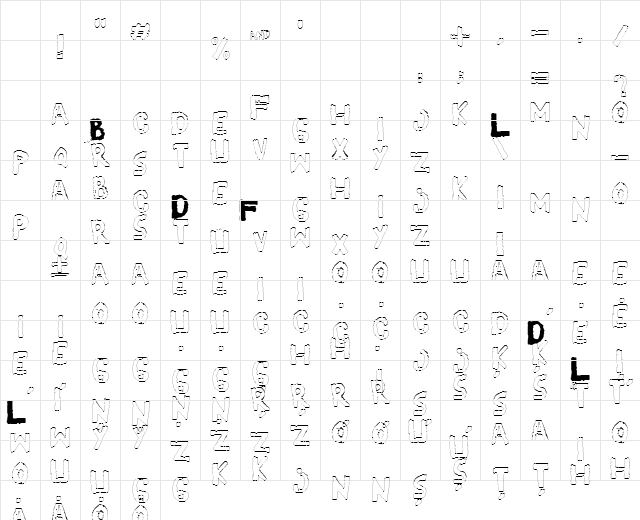
Complete YES_outlineshaken Regular glyph index. Displaying only characters natively supported by YES_outlineshaken Regular font.
YES_outlineshaken is built around its visual character rather than neutral utility - its distinctive forms are designed to make an impression at display sizes.
Font Pairing: Pair with a clean neutral sans-serif for body copy to let YES_outlineshaken's character lead without overwhelming the composition.
Pro Tip: Use YES_outlineshaken exclusively at display sizes - it was designed to be seen, not read at length. Let a neutral companion handle body copy.